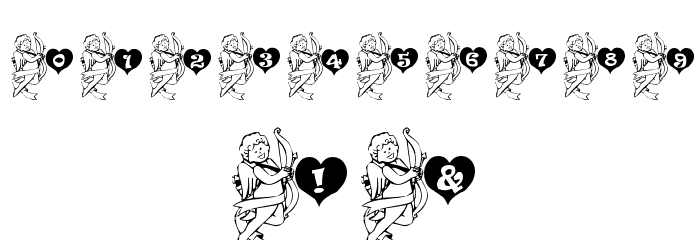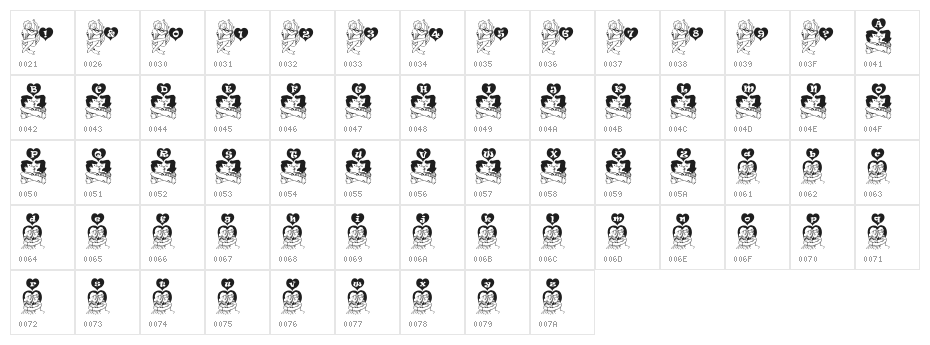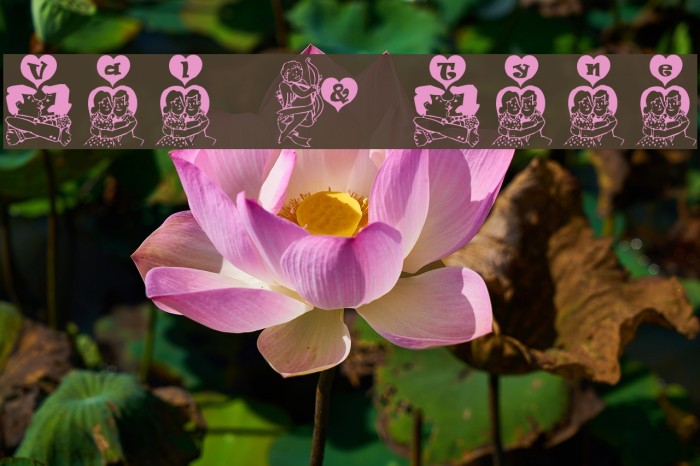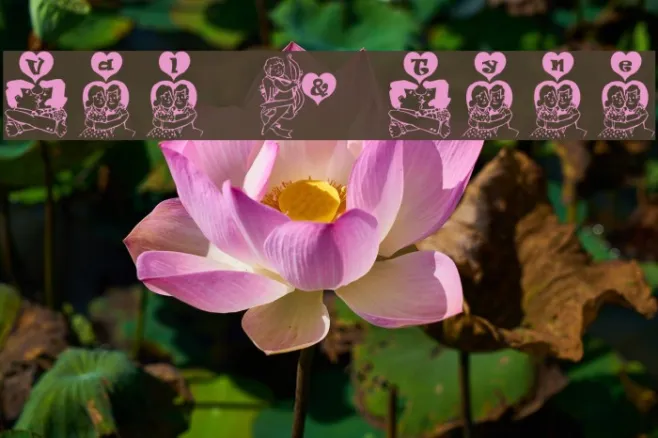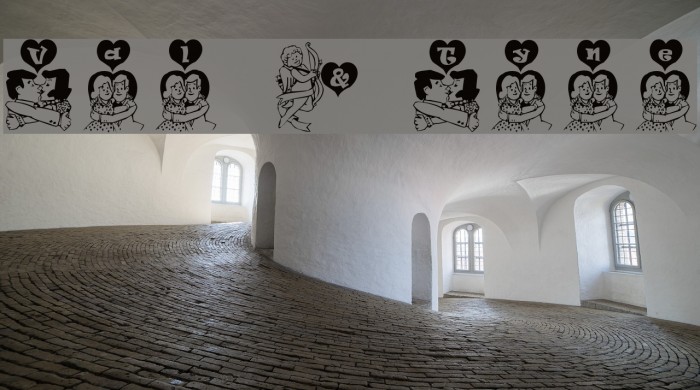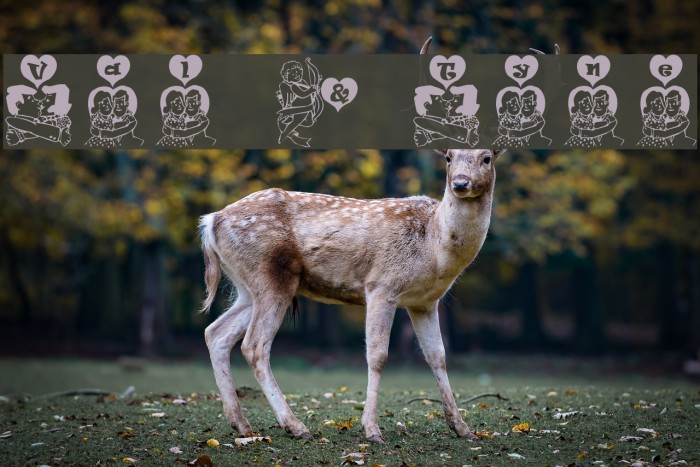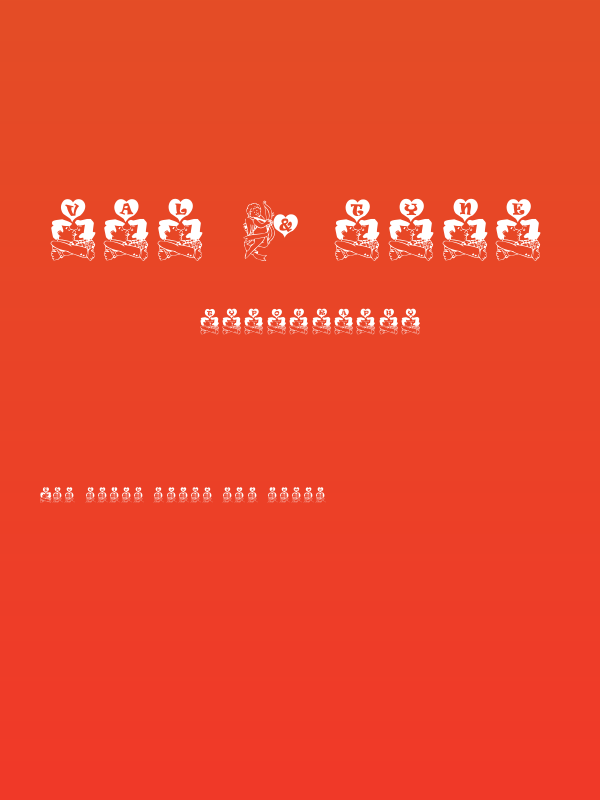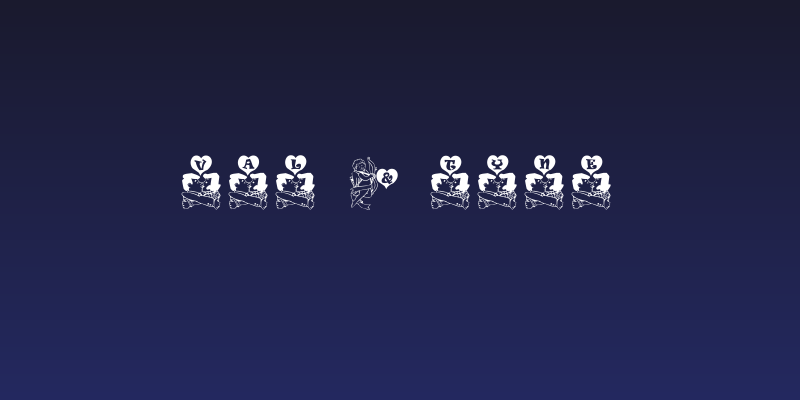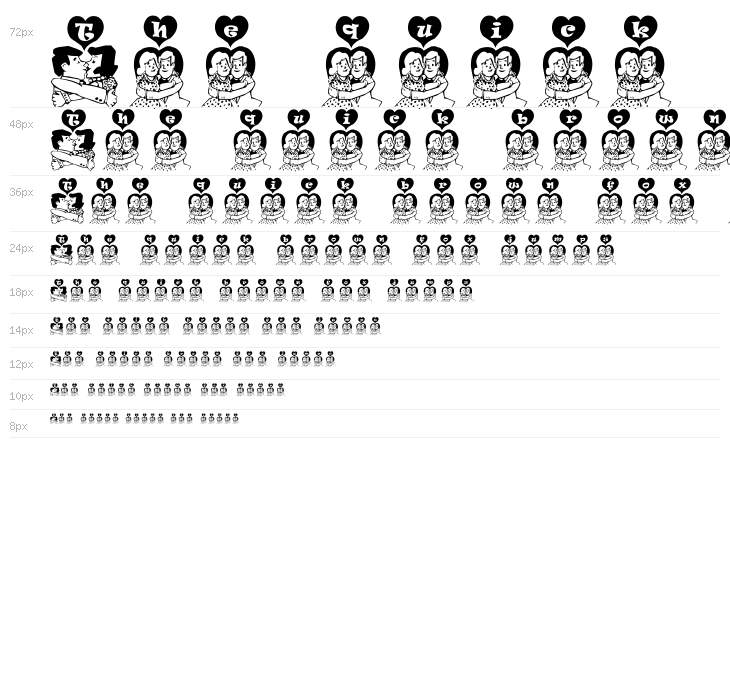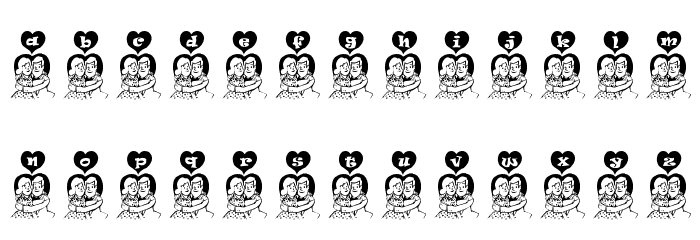
Val & Tyne Font
Val & Tyne Description
This unique decorative font features a playful and romantic design, with each character encased in a heart shape and accompanied by a cherubic figure. The uppercase letters are bold and whimsical, each adorned with a cherub holding a scroll, while the lowercase letters are similarly styled with cherubs in a different pose. The numbers continue this theme, each with a cherub holding a heart. The special characters are also creatively integrated with the cherubic theme, making this font ideal for Valentine's Day or love-themed projects. The intricate details and playful style make it stand out as a display font.
| Proposed Projects | Ideal for Valentine's Day cards, wedding invitations, romantic event posters, and love-themed branding. |